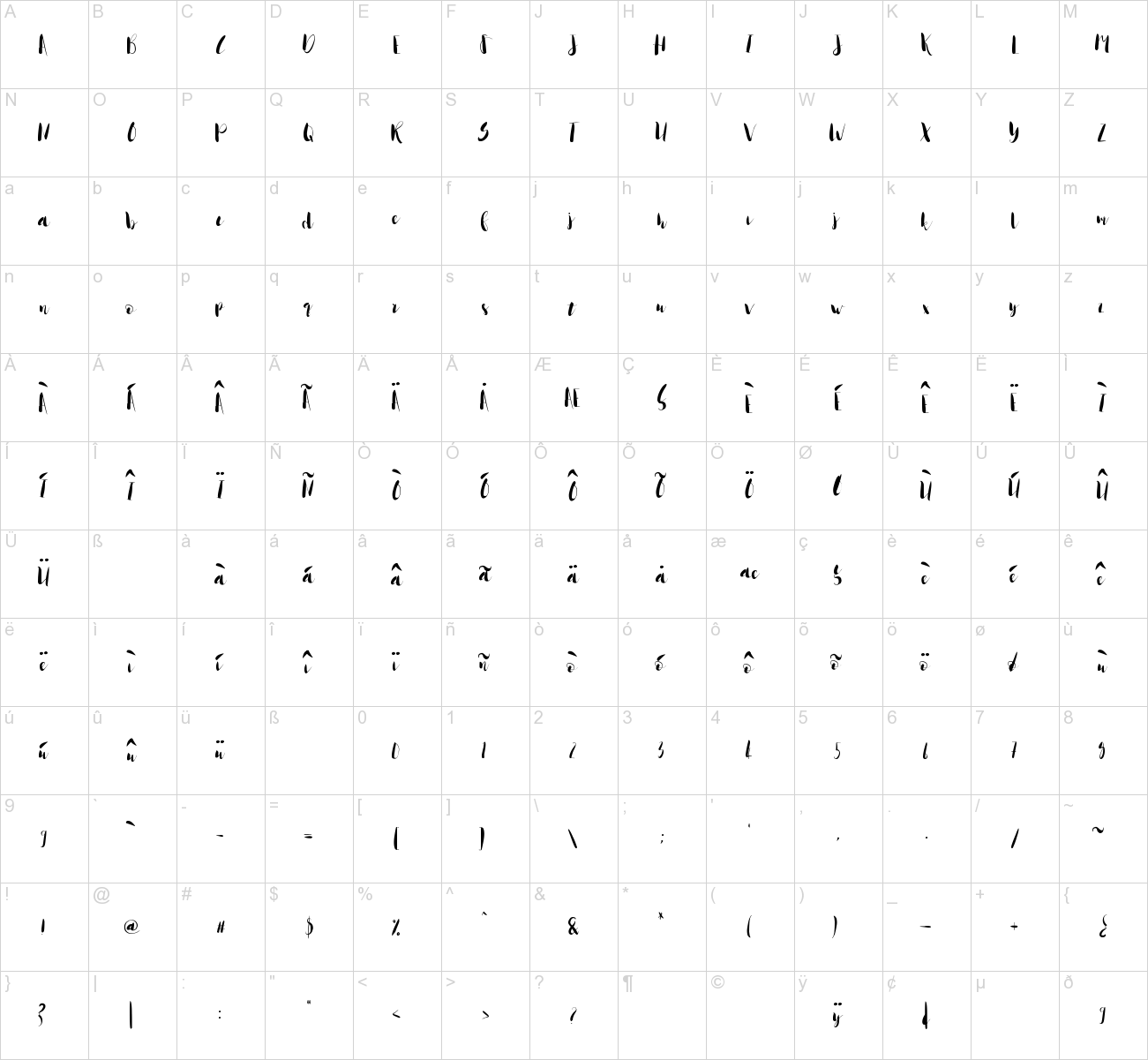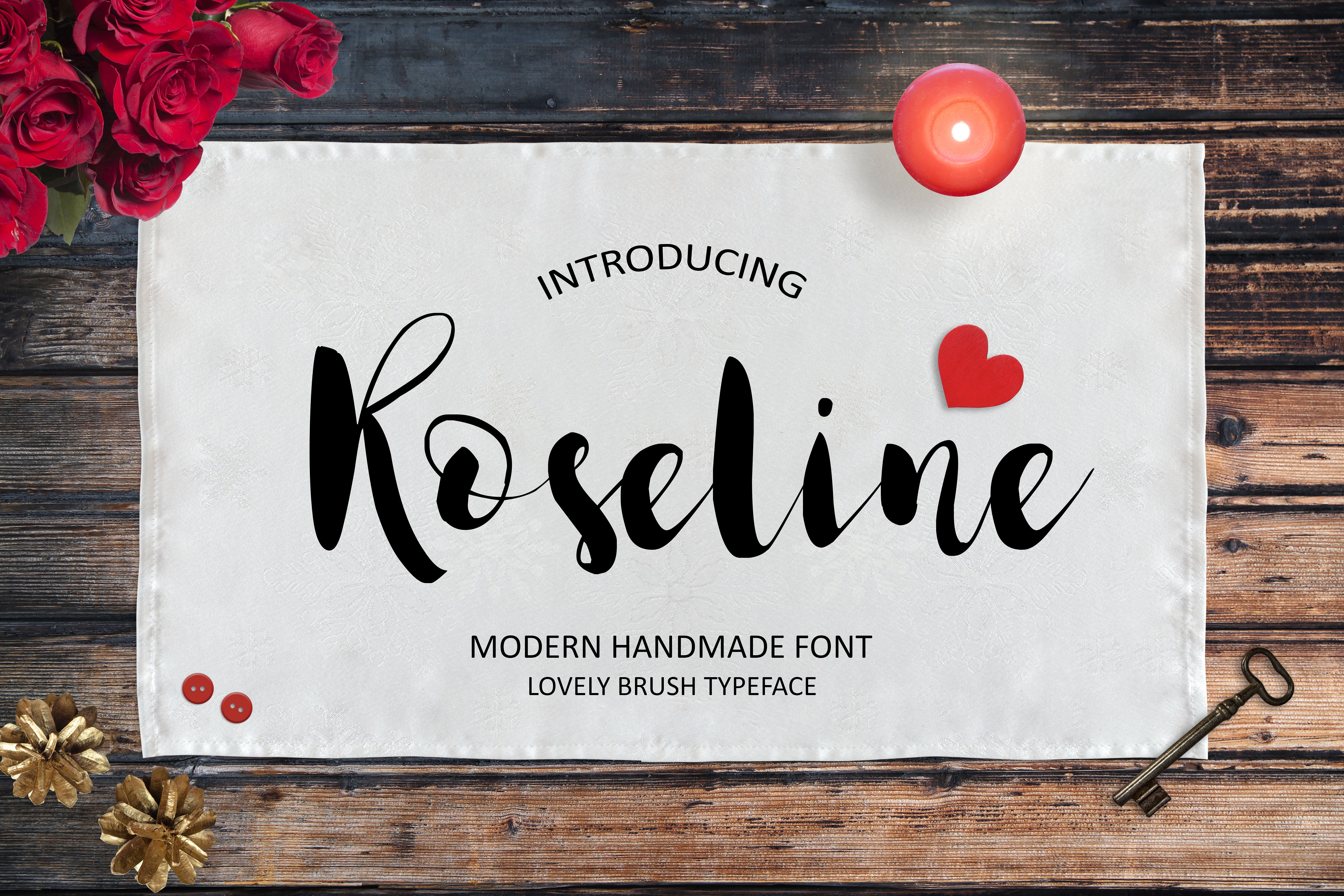
Roseline Script Font
Roseline Script is a hand-made font created by using thick brush. It is a lovely font that the thickness of lines are charming. It can be easily used for t-shirts, bags, invitations and so on…